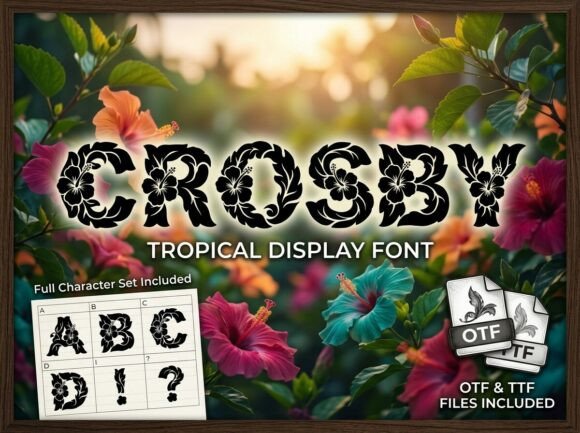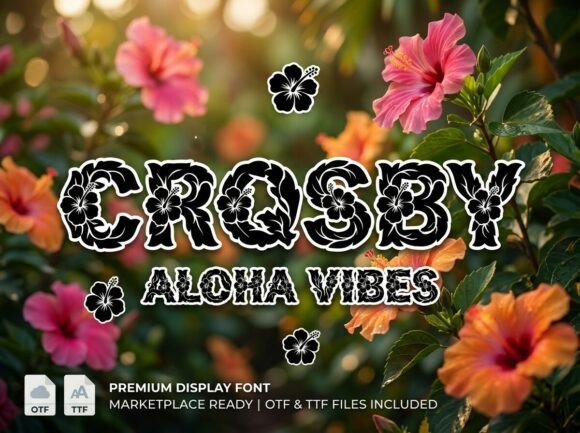
Escape to a Tropical Paradise with Crosby Font
Are you tired of using the same old fonts in your graphic designs? Do you want to add a touch of tropical flair to your projects? Look no further than Crosby, a premium display font that’s sure to transport your designs to a sunny tropical paradise. With its ultra-chunky, novelty design, Crosby is the perfect choice for designers and crafters looking to add a little aloha spirit to their work.
Aloha Vibes in Every Letter
Crosby is more than just a font – it’s a work of art. Each letter is carefully crafted to resemble a lush botanical artwork, complete with intricate vector patterns of trailing jungle leaves and blooming hibiscus flowers. The thick, blocky character walls are filled with these beautiful designs, creating a truly unique and eye-catching effect. Whether you’re designing summer pool party invitations, beach restaurant tiki branding, or tropical cocktail menus, Crosby is sure to make your project stand out.
Breaking the Rules of Traditional Typography
Crosby is not your average font. It completely throws out traditional typographic rules, creating a truly one-of-a-kind design experience. The font’s ultra-chunky design and intricate negative-space aesthetics make it a true showstopper. With Crosby, you can add a touch of whimsy and fun to your designs, making it perfect for playful island resort merchandise titles, custom Cricut or Silhouette vinyl sticker crafts, and more.
Perfect for Summer and Tropical-Themed Projects
Crosby is the perfect choice for any summer or tropical-themed project. Imagine using it to create eye-catching beach restaurant tiki branding, complete with colorful hibiscus flowers and lush greenery. Or, use it to design fun and playful summer pool party invitations that will make your guests feel like they’re escaping to a tropical paradise. The possibilities are endless with Crosby.
Crafter’s Delight
Crosby is not just for professional designers – it’s also perfect for crafters and DIY enthusiasts. Use it to create custom vinyl stickers, iron-on designs, or even handmade cards and invitations. The font’s bold, chunky design makes it easy to cut and weed, making it perfect for Cricut or Silhouette projects. Plus, the font’s unique design ensures that your projects will stand out from the crowd.
Key Features of Crosby Font
- Ultra-chunky, novelty display font
- Intricate vector patterns of trailing jungle leaves and blooming hibiscus flowers
- Thick, blocky character walls with clever negative-space aesthetics
- Perfect for summer and tropical-themed projects
- Marketplace-ready premium display font
- Compatible with Cricut and Silhouette machines
Get Ready to Transport Your Designs to a Tropical Paradise
Are you ready to add a touch of tropical flair to your graphic designs? Look no further than Crosby font. With its unique, ultra-chunky design and intricate botanical artwork, Crosby is sure to transport your designs to a sunny tropical paradise. Whether you’re a professional designer or a crafter, Crosby is the perfect choice for anyone looking to add a little aloha spirit to their work. So why wait? Download Crosby font today and start creating your own tropical masterpieces!
Tips and Inspiration for Using Crosby Font
Need some inspiration for using Crosby font? Here are a few ideas to get you started:
- Use Crosby to create eye-catching summer pool party invitations, complete with colorful hibiscus flowers and lush greenery.
- Design fun and playful beach restaurant tiki branding with Crosby, featuring the font’s unique botanical artwork.
- Create custom vinyl stickers and iron-on designs with Crosby, perfect for tropical-themed crafts and DIY projects.
- Use Crosby to design playful island resort merchandise titles, complete with the font’s ultra-chunky, novelty design.
| Author | clipartguru |
In conclusion, Crosby font is a premium display font that’s sure to transport your graphic designs to a tropical paradise. With its unique, ultra-chunky design and intricate botanical artwork, Crosby is the perfect choice for designers and crafters looking to add a little aloha spirit to their work. Whether you’re designing summer pool party invitations, beach restaurant tiki branding, or tropical cocktail menus, Crosby is sure to make your project stand out. So why wait? Download Crosby font today and start creating your own tropical masterpieces!